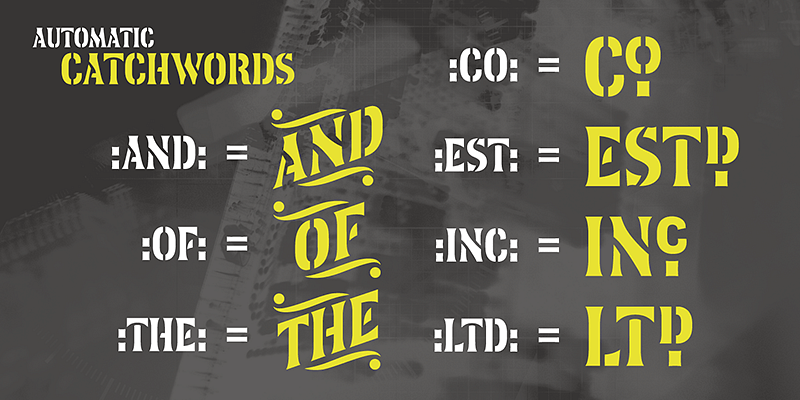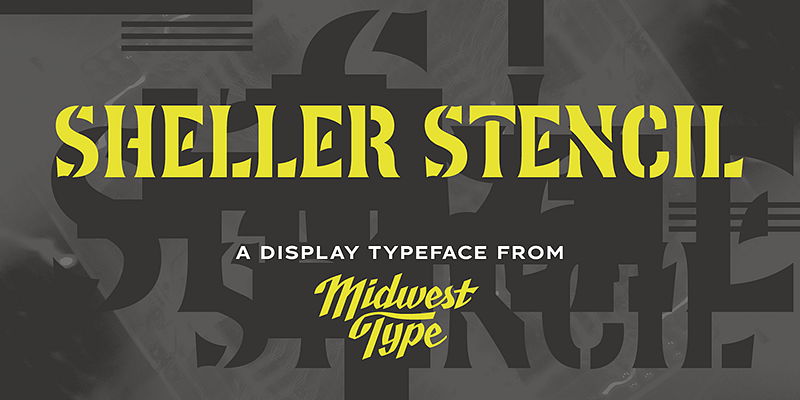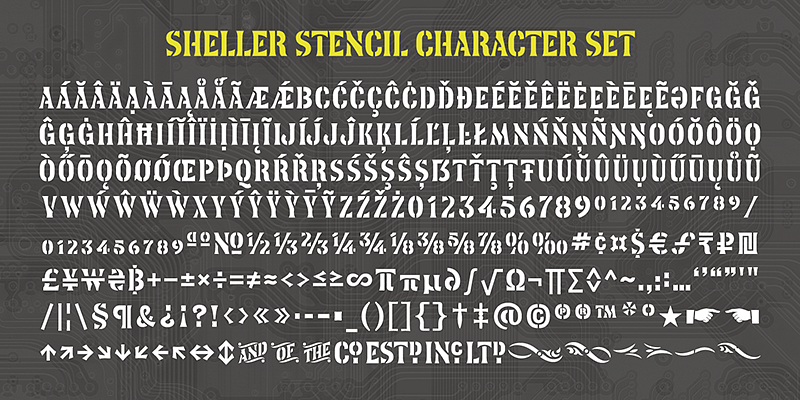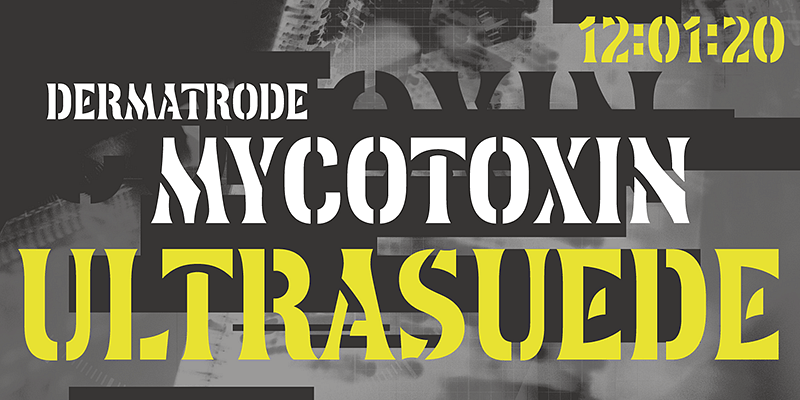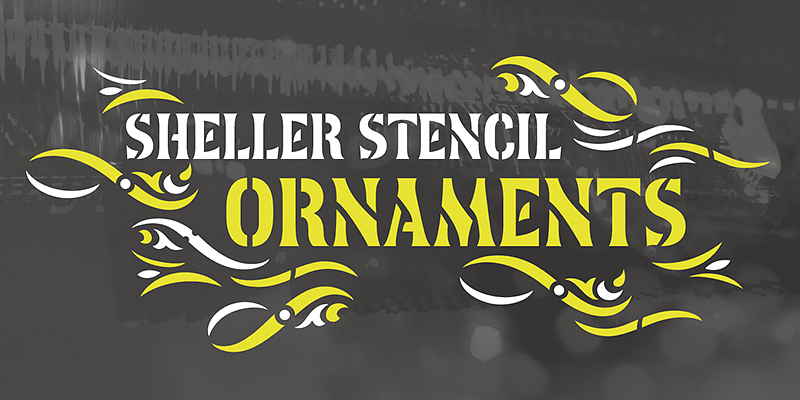
Sheller Stencil is an interpretation of Victorian stenciled lettering found on agricultural machinery made by the Tiffin Agricultural Works in Tiffin, Ohio. These late 19th-century stenciled forms exhibited an unusual pattern, with some characters split at right angles and others following curvilinear breaks in line with the original Art Nouveau-inspired letterforms. Despite Sheller Stencil’s antique origins, it makes for an inspired choice for modern packaging, branding, and editorial work.